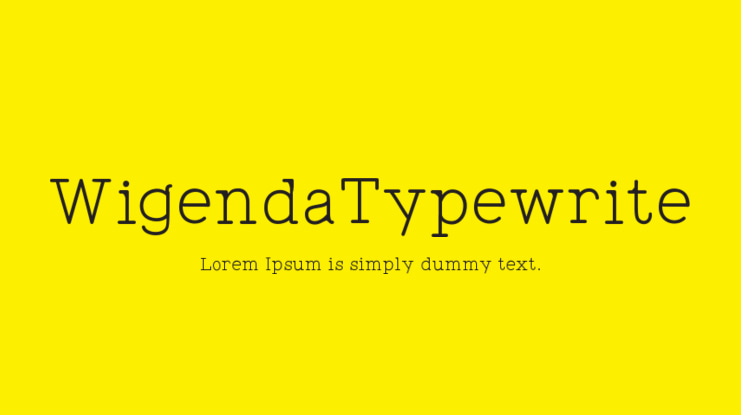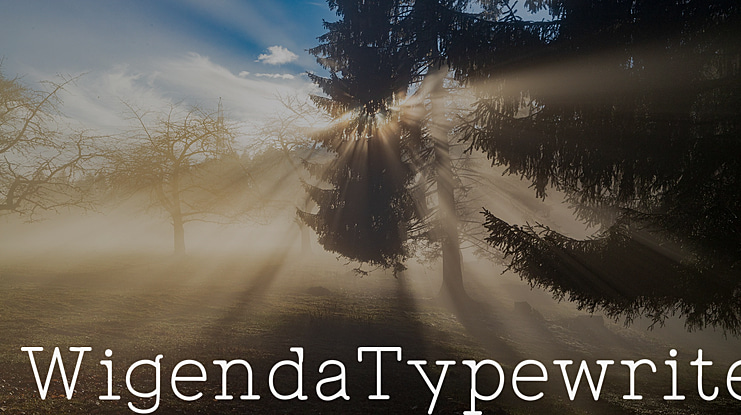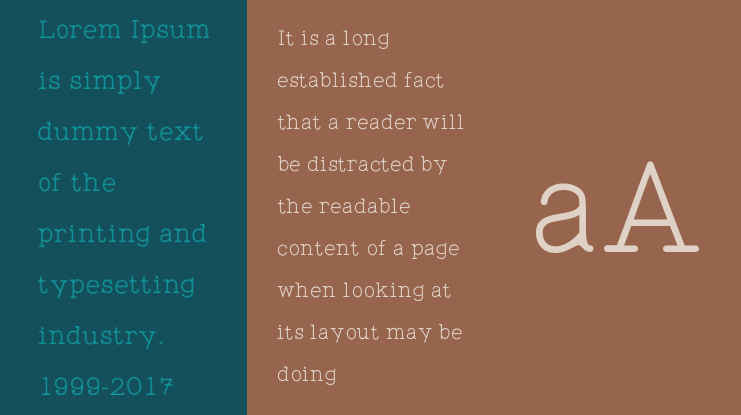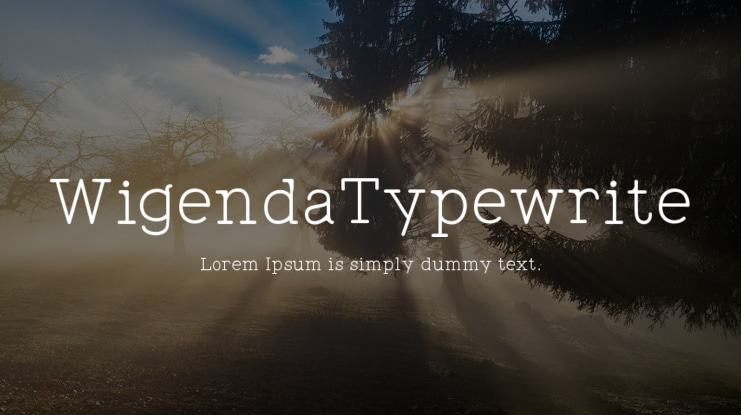
WigendaTypewrite Font
Wigenda Typewrite is new and modern typewriter with clean and thin stroke it's perfect for formal, web font, formal modern flat and etc. So add it to your creative ideas and notice how it makes them stand out!